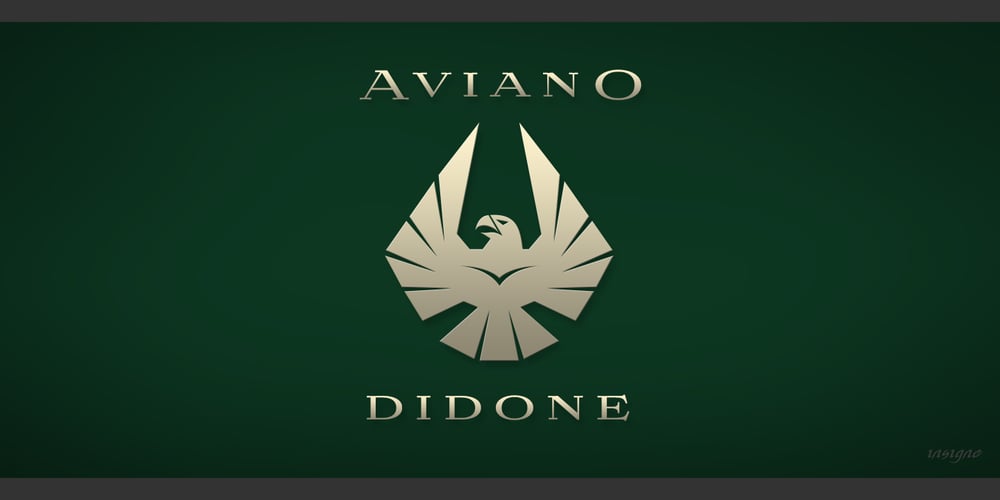
Aviano Didone Font Family was designed by Jeremy Dooley and published by insigne. Aviano Didone contains 32 styles and family package options. First released in 2009, Aviano Didone has been completely remastered and expanded with new weights and optical sizes. Aviano Didone’s high contrast forms lend elegant beauty, luxury and romance to your designs and it’s extended letterforms provide strength and power. Aviano’s foundational classical forms give the face a look that is unique for Didone faces. Aviano Didone is a bold interpretation of vertically contrasted type. Aviano Didone comes in eight different weights and is packed with OpenType features. Want ball terminals for that logotype or headline? Flat serifs? Swash forms? Aviano Didone includes 102 alternate characters. Five style sets are available, and Art Deco inspired alternates, small forms, swash, titling and stylistic alternates. Aviano Didone also includes 40 discretionary ligatures for artistic typographic compositions. The new optical sizes allow Aviano Didone to be used on the web or in print without losing detail. Be sure to check out the rest of the Aviano series which can be used as complementary faces, including Aviano, Aviano Serif, Aviano Sans and Aviano Flare.